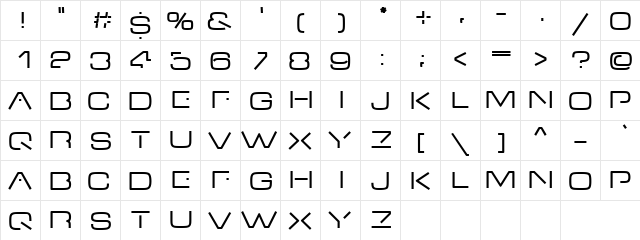
Indefine Regular Font Preview
Indefine Regular
Design Context for Indefine Typeface
Indefine is a composed and adaptable typeface that performs quietly and consistently across a wide range of design contexts.